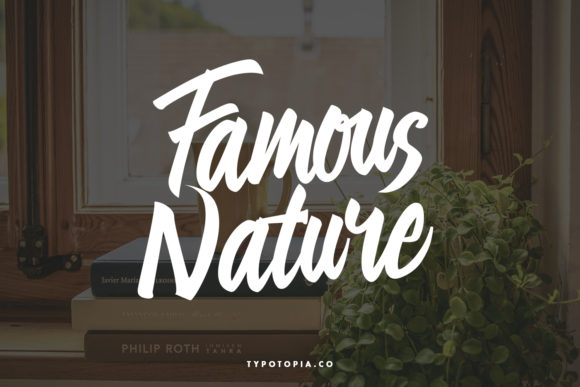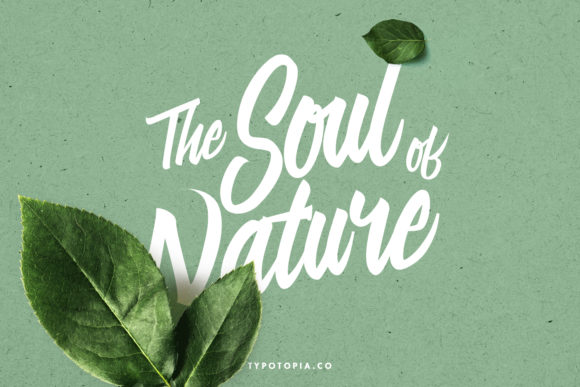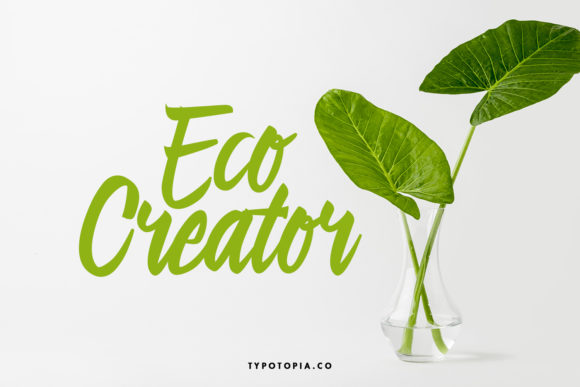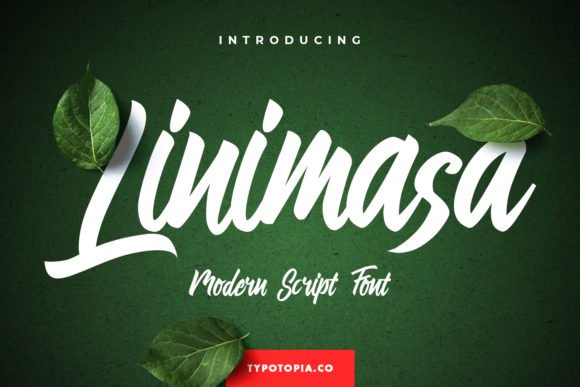
Introduction to Linimasa Font
Linimasa is an exquisite handwritten font, masterfully designed to become a true favorite.
Why Choose Linimasa Font?
Linimasa Font offers exceptional quality and versatility, making it a valuable addition to your design toolkit. Whether you’re creating for personal projects or commercial use, Linimasa Font delivers professional results.